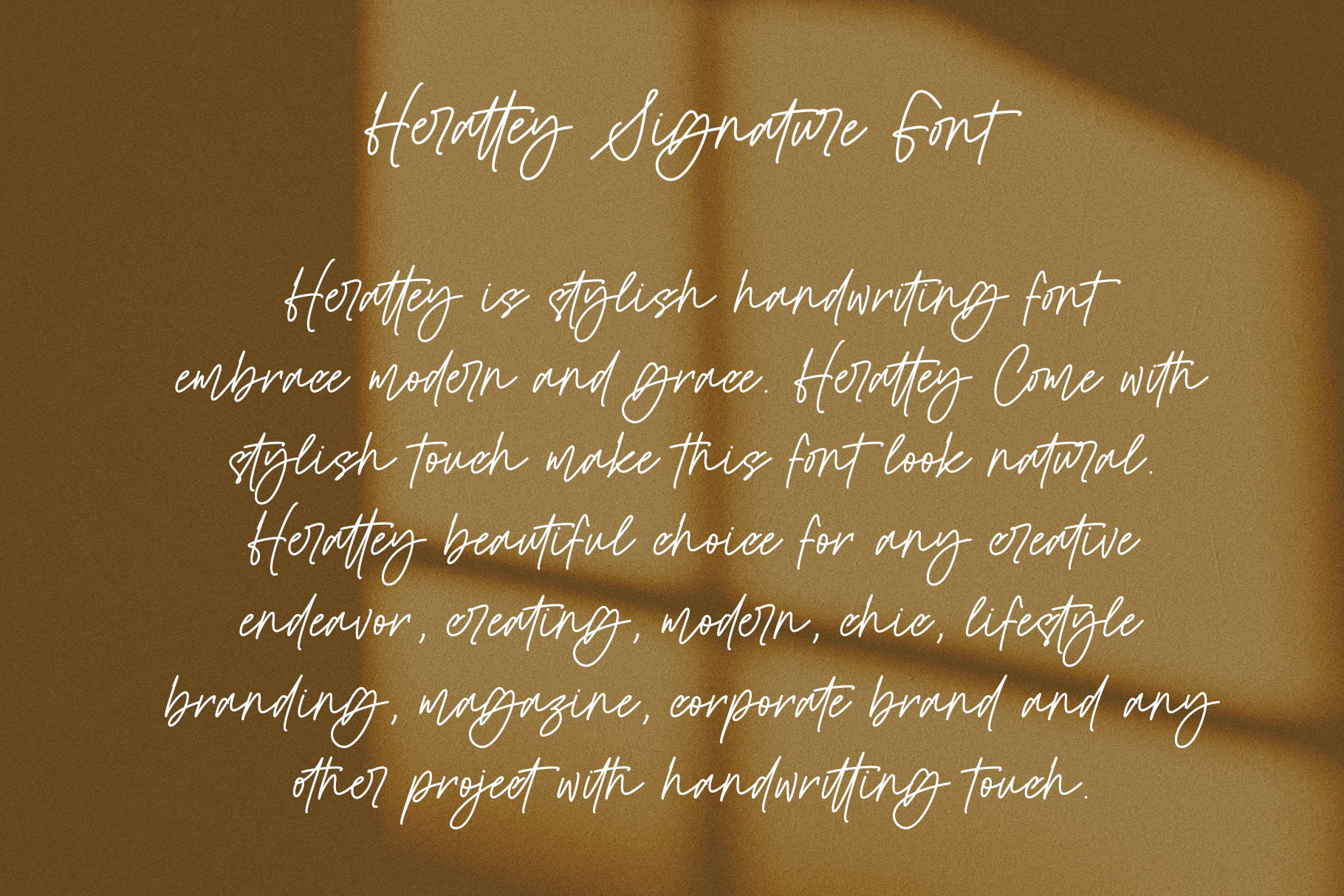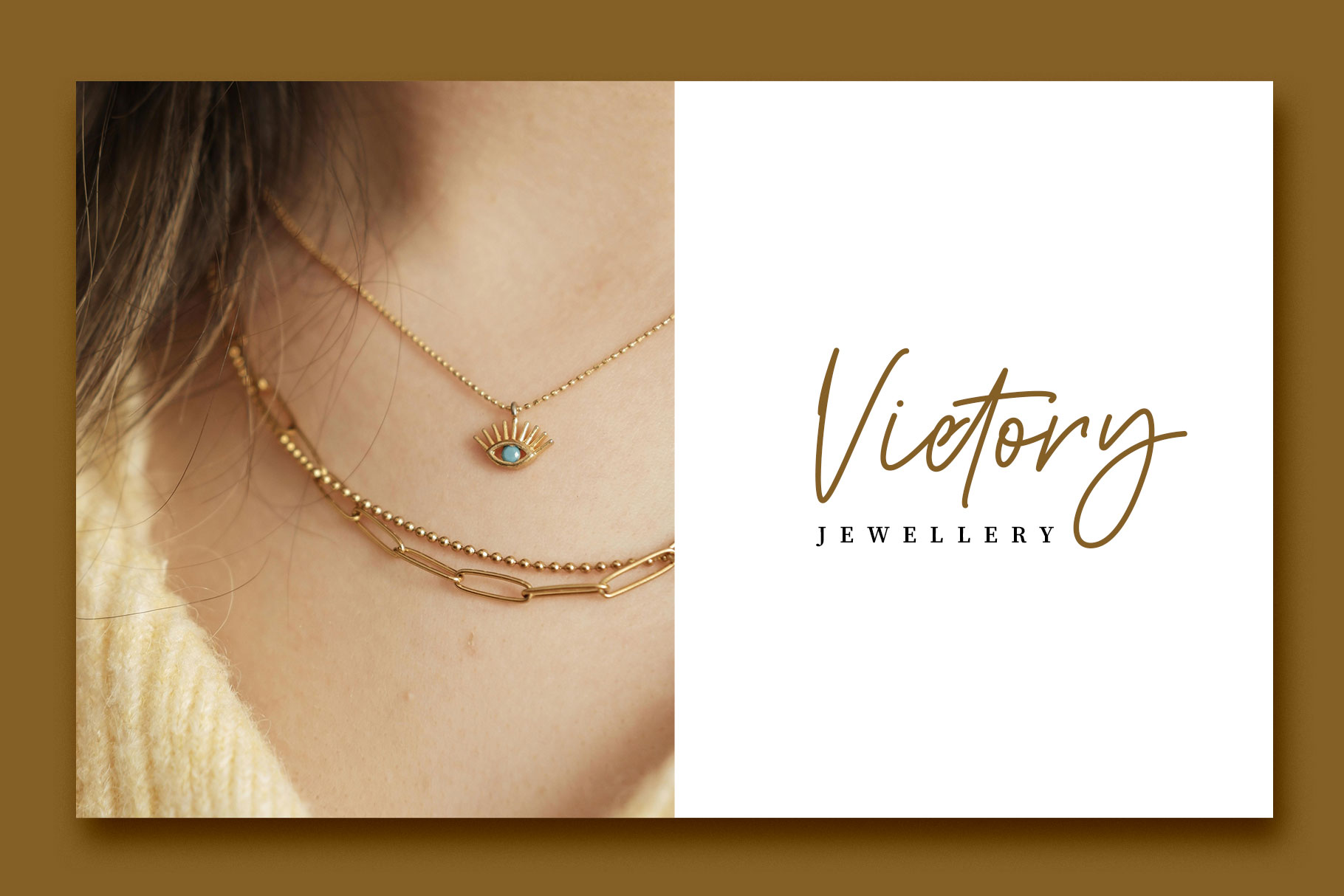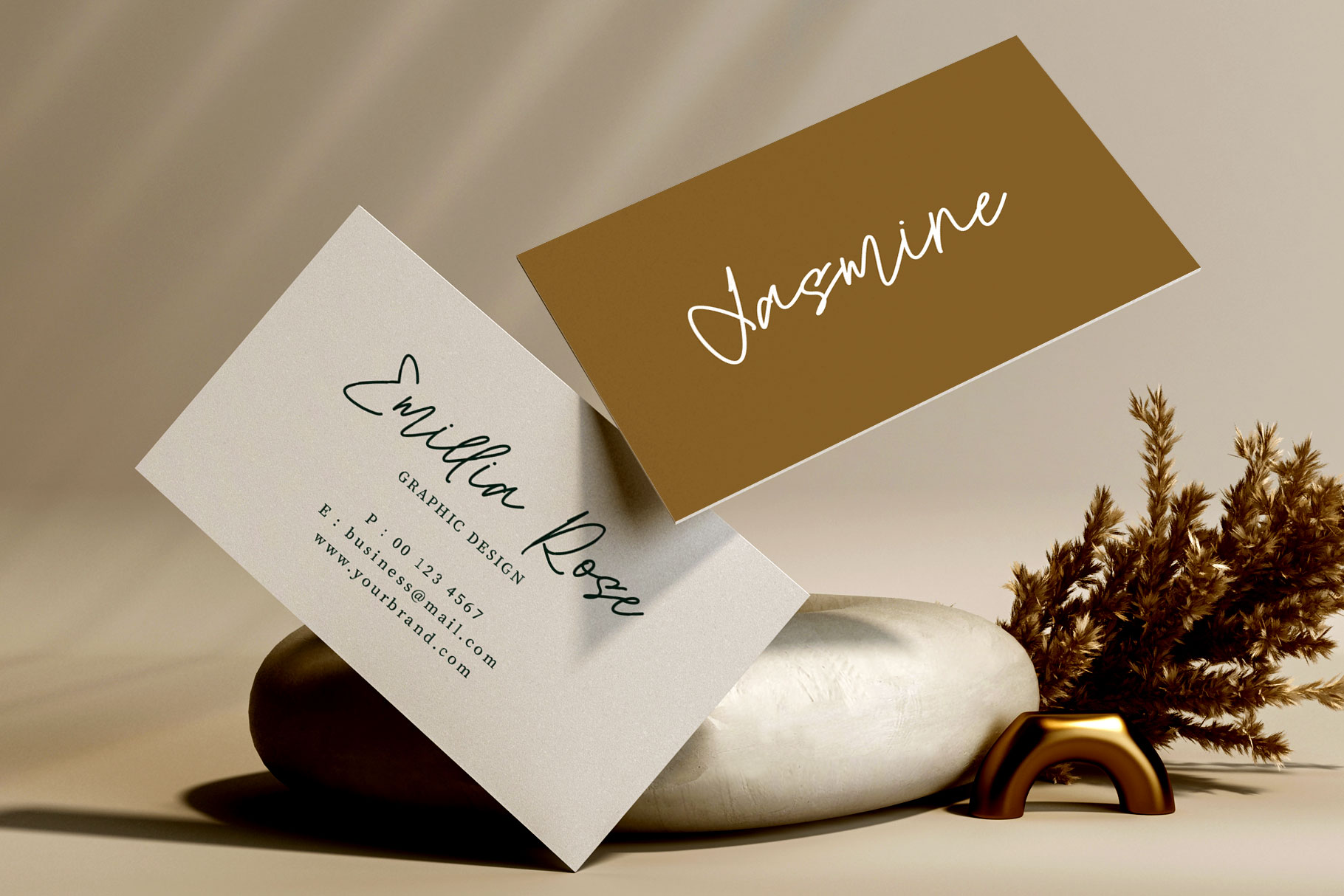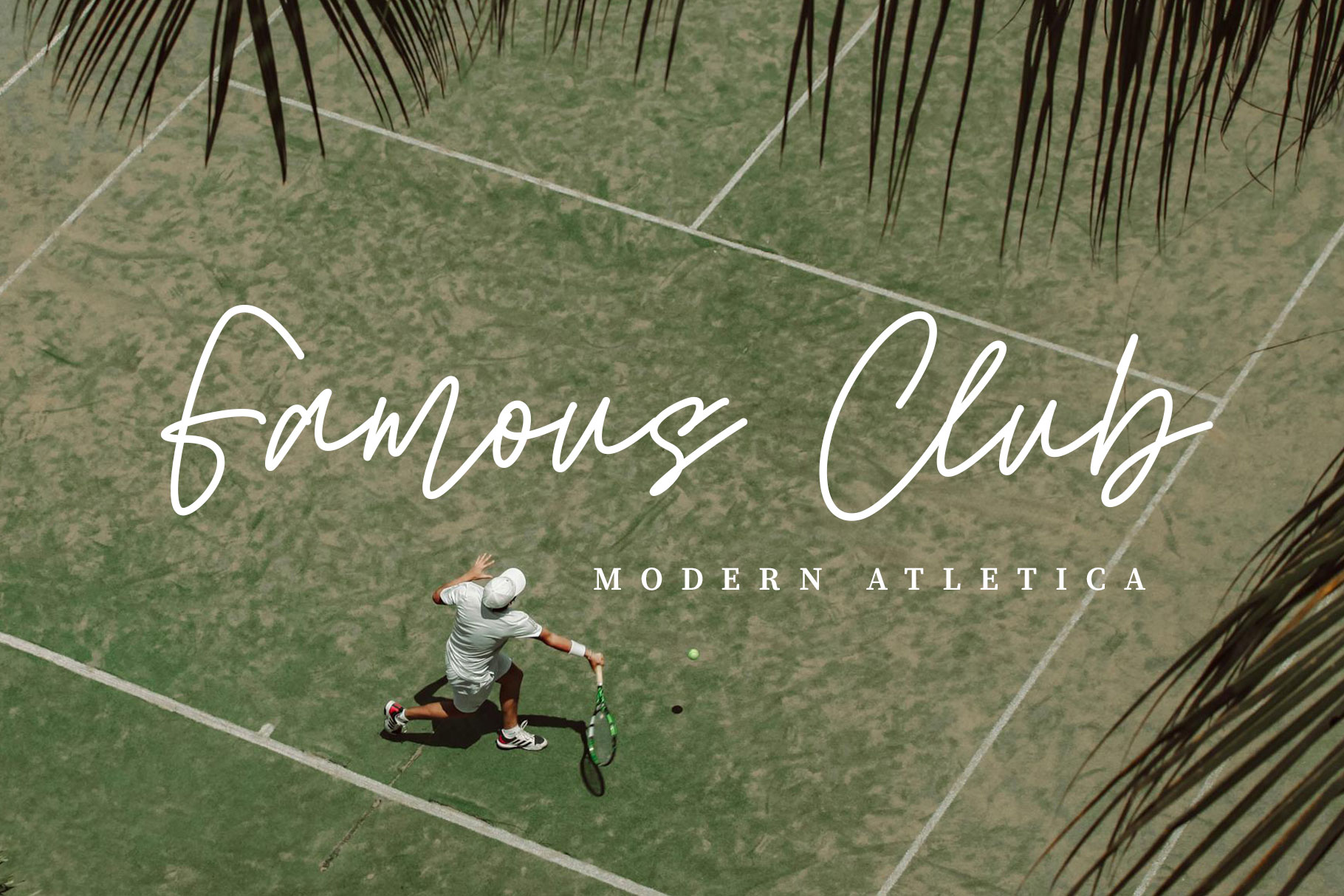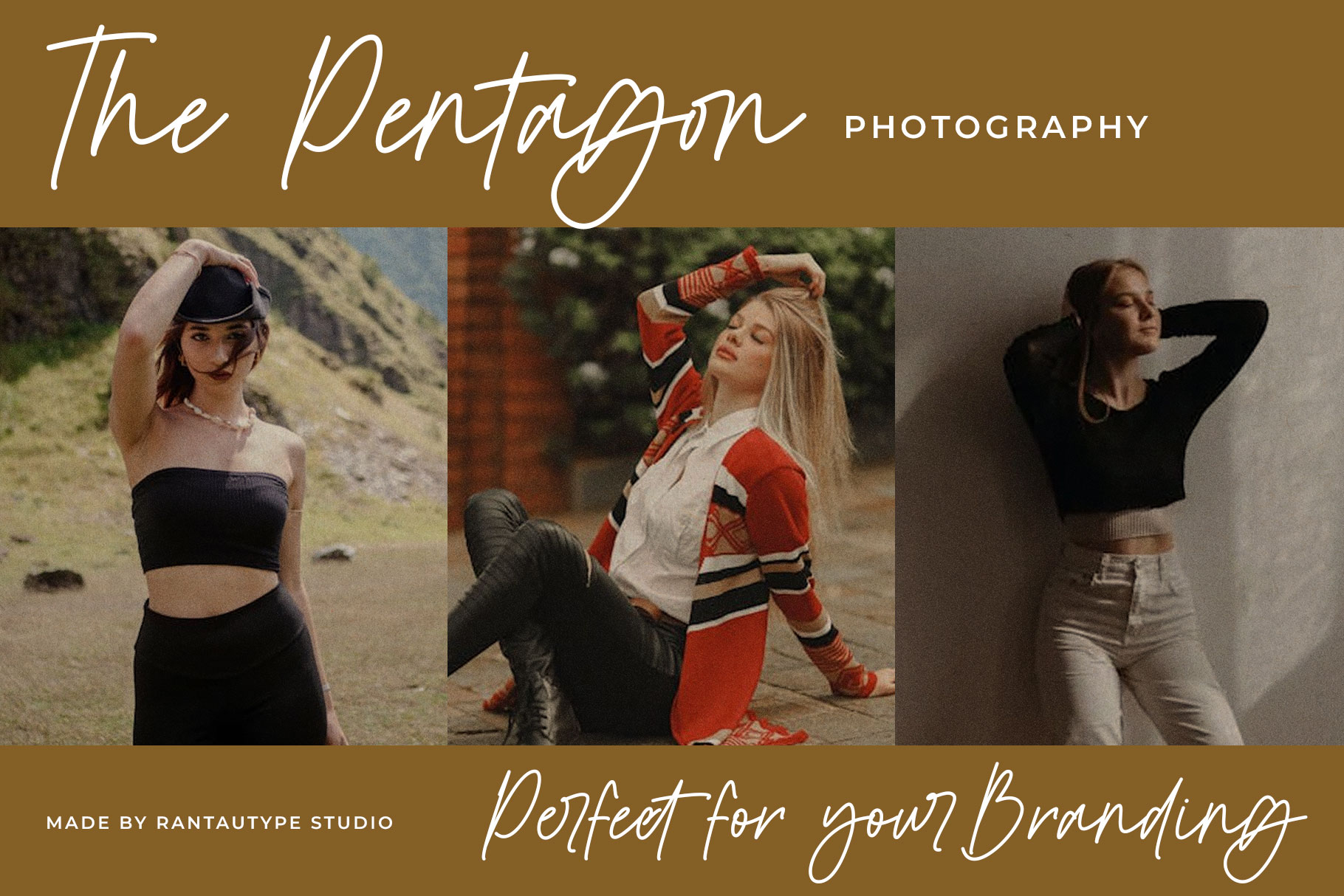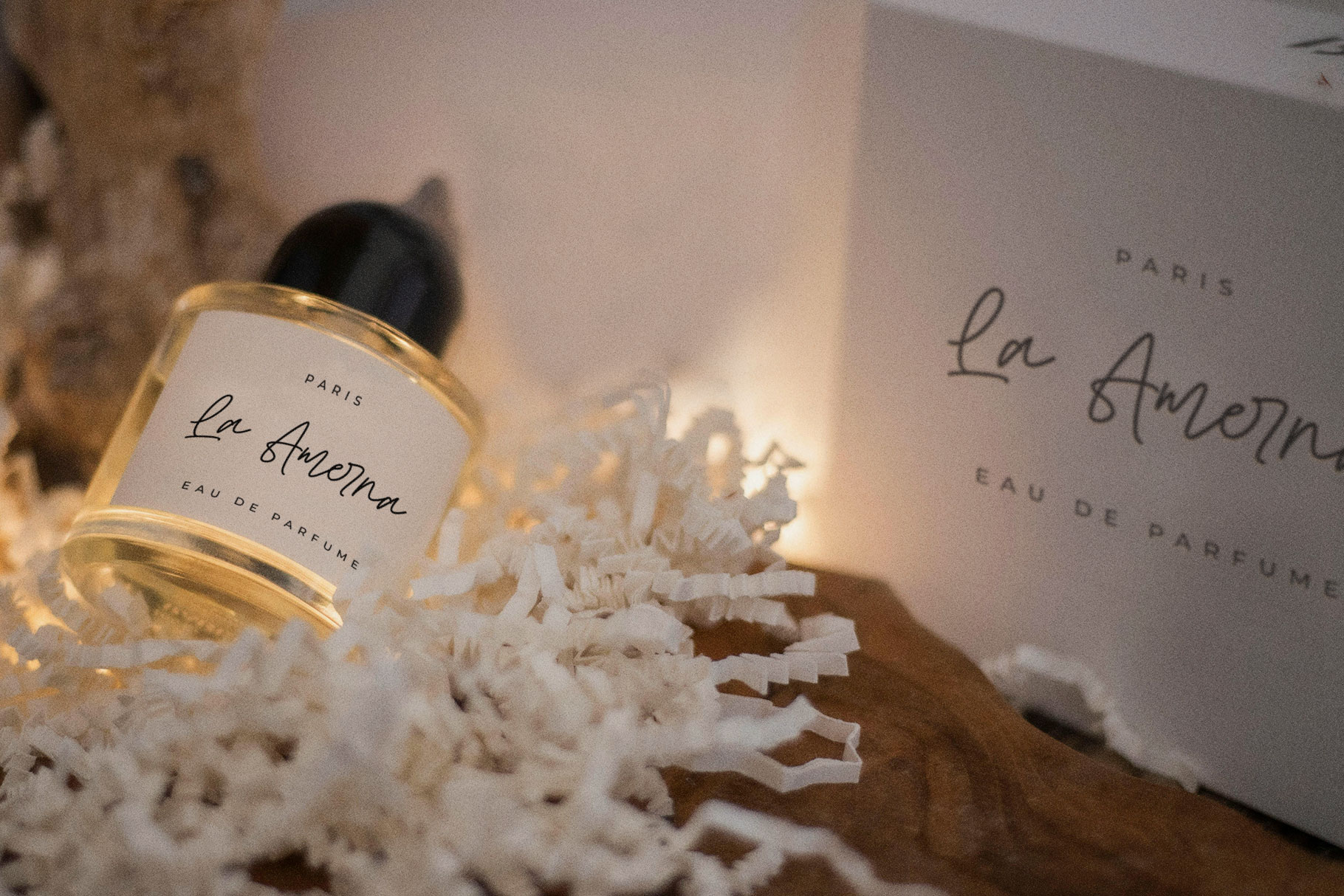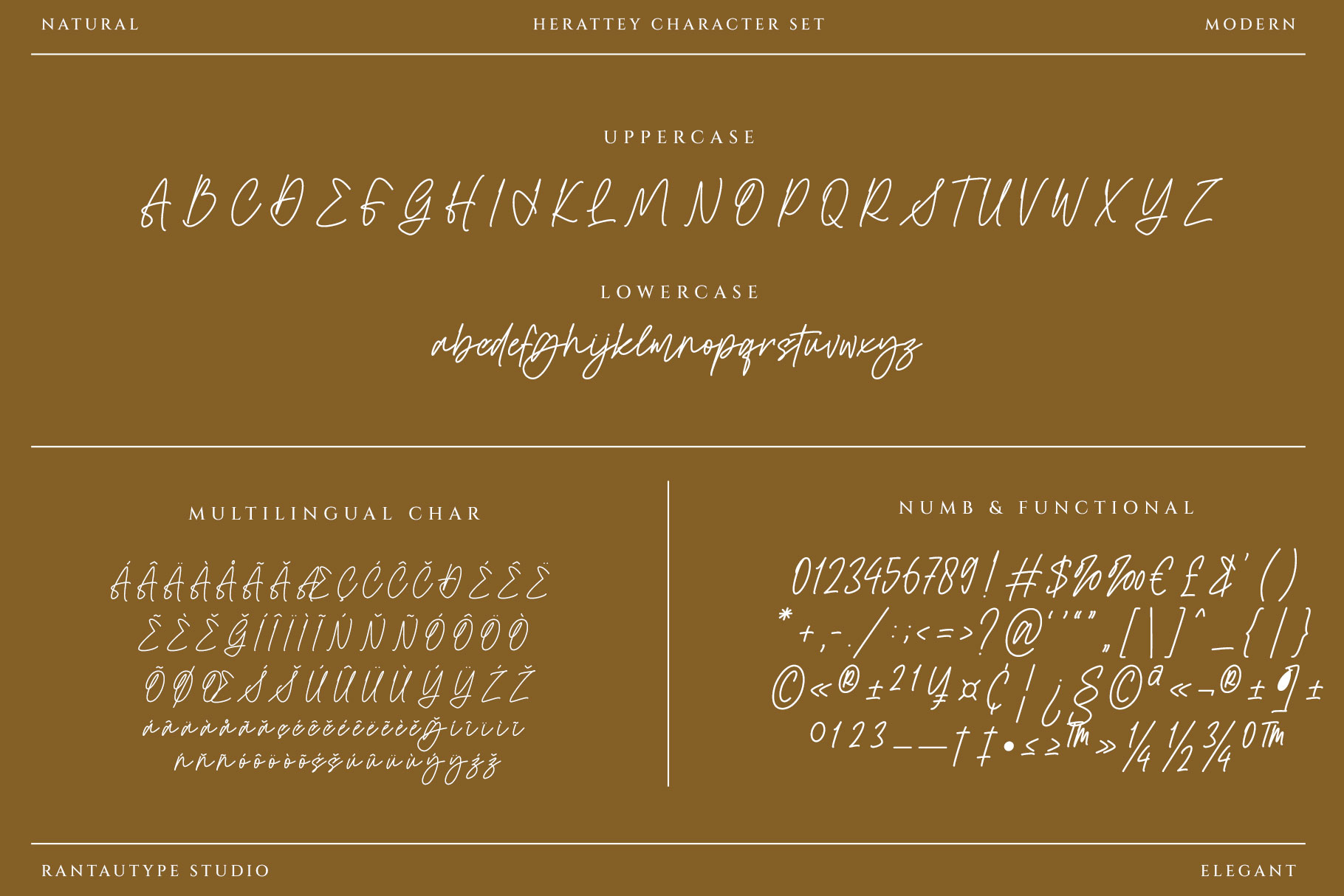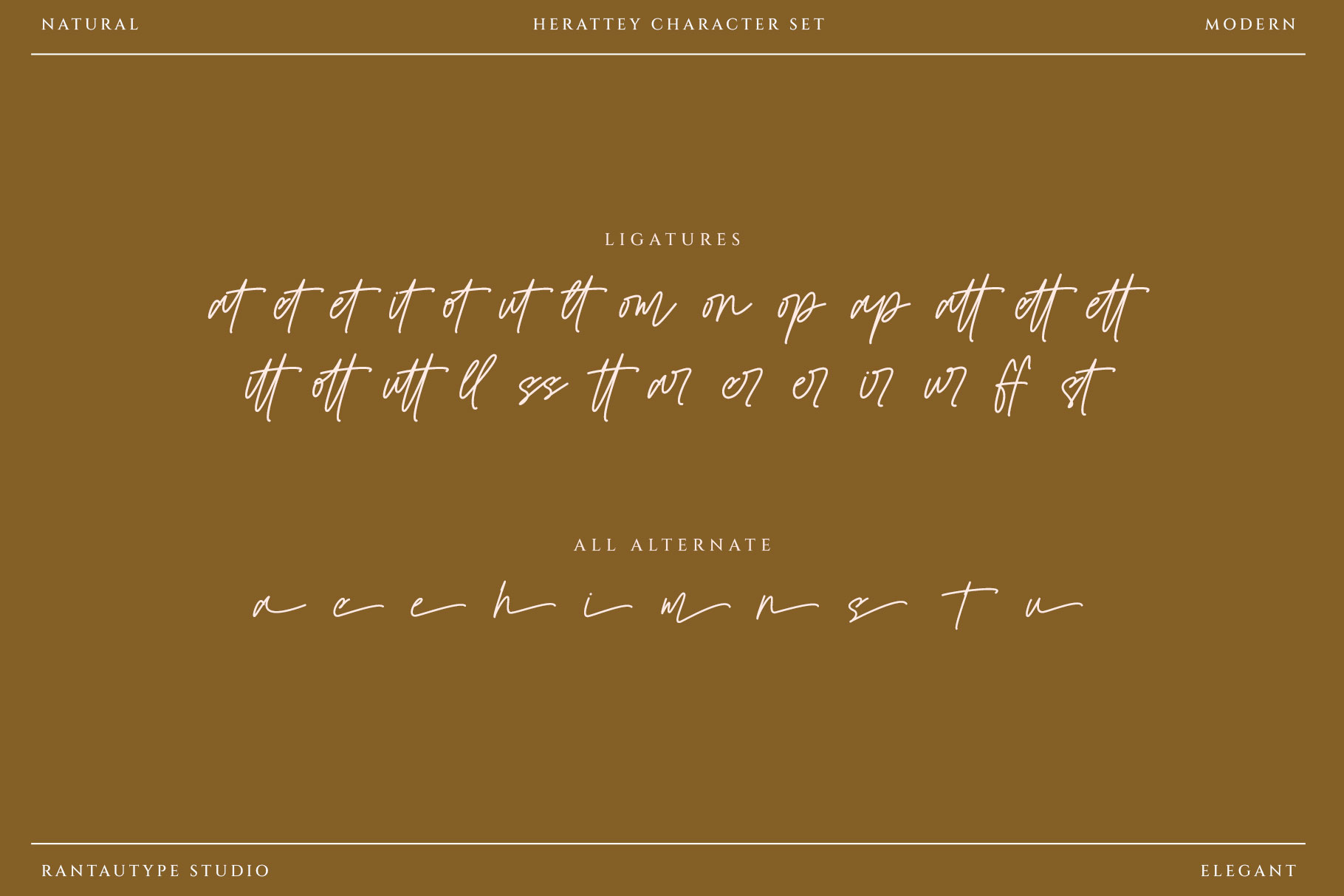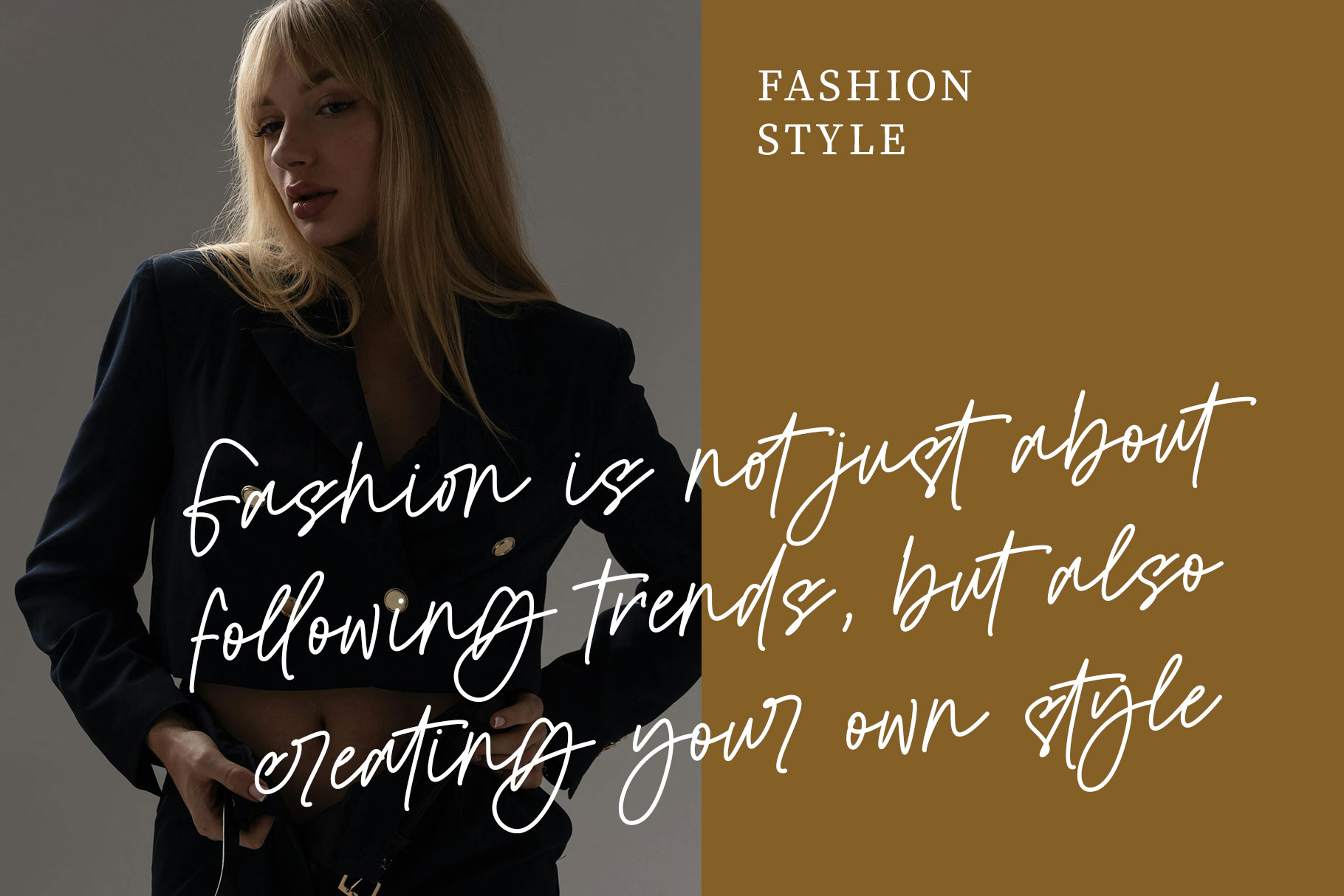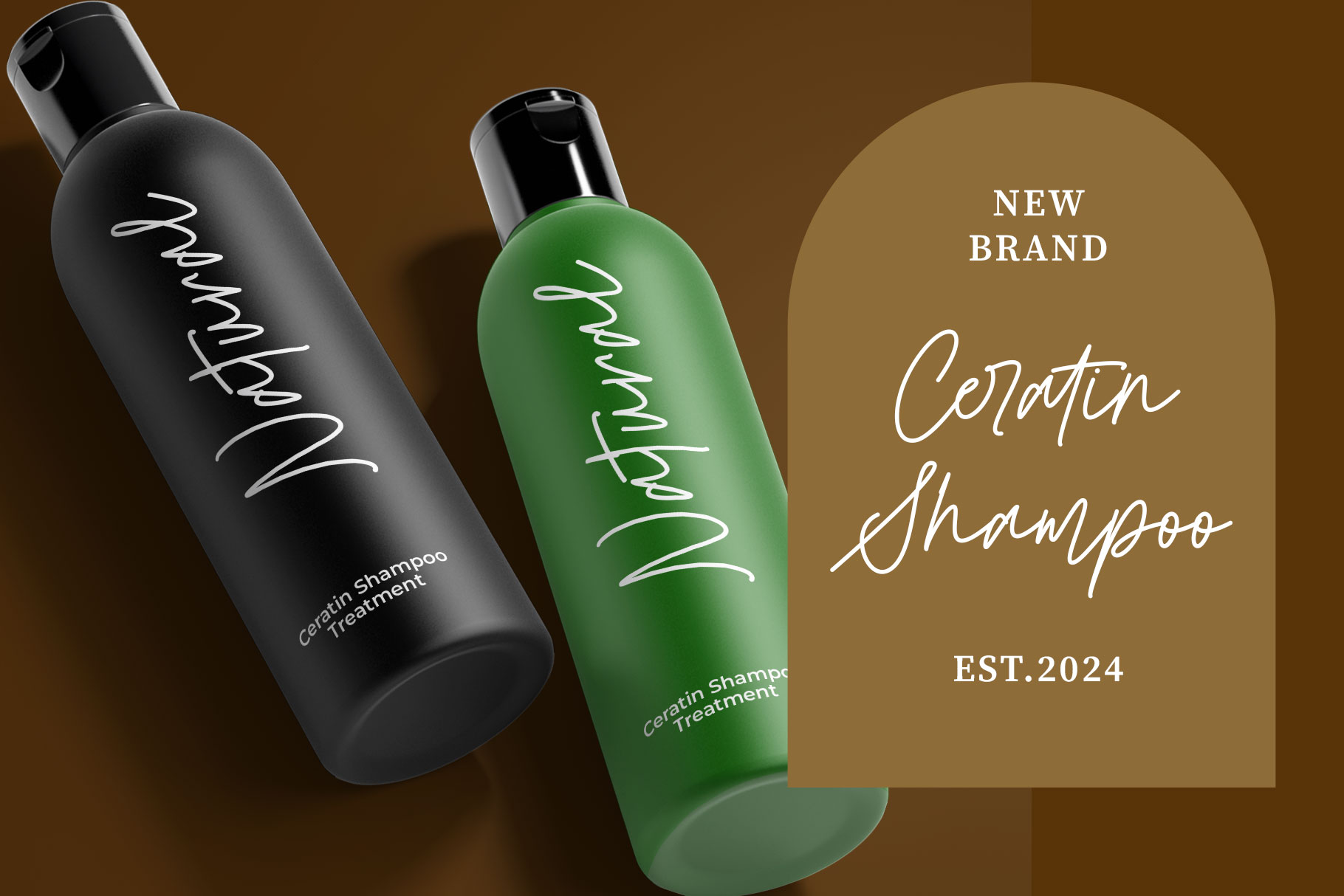
Herattey Signature Font
Herattey is stylish handwriting font embrace modern and grace. Herattey Come with stylish touch make this font look natural and elegant. Herattey is a beautiful choice for any creative endeavor, creating elegant, modern, chic, lifestyle design such as logotype, title, cover, branding, invitations, wedding designs, display and magazine, social media posts, advertisements, printed quotes, product packaging, corporate brand, product designs, labels, photography, watermarks, special events and any other project with handwritten touch.